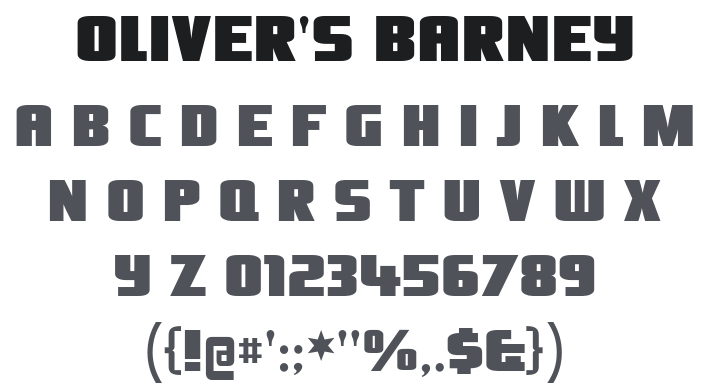
Oliver's Barney Font
About Oliver's Barney
Oliver's Barney is a bold, vintage sans-serif inspired by early 20th-century gaspipe signage lettering — the kind of hand-painted industrial type seen on old storefronts, factory walls, and railway depots. Its simple, sturdy letterforms carry an honest, no-frills working-class charm. Perfect for heritage branding, craft beer labels, workshop signage, vintage poster reproductions, and any design channeling early industrial-era authenticity.